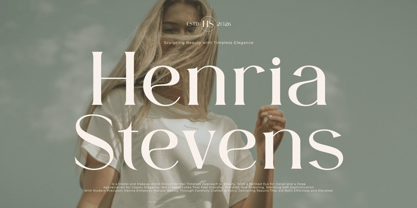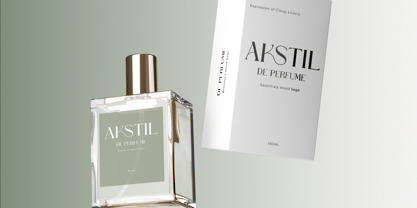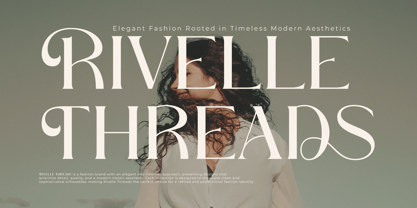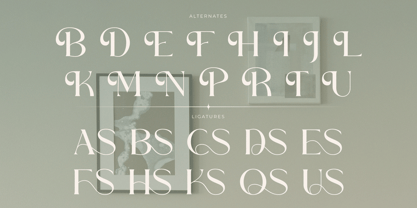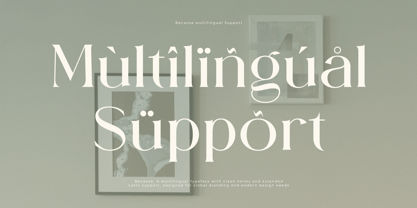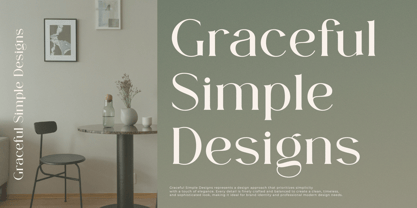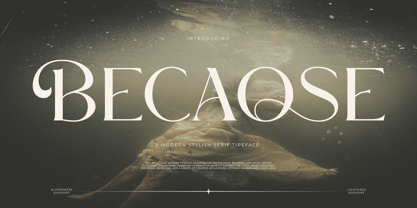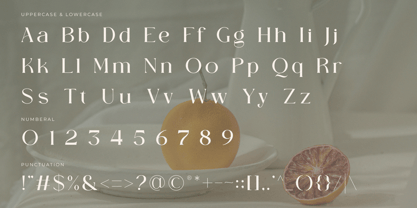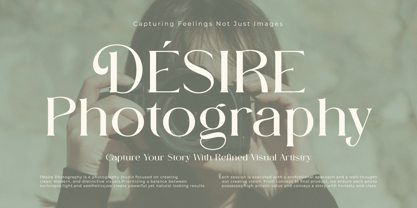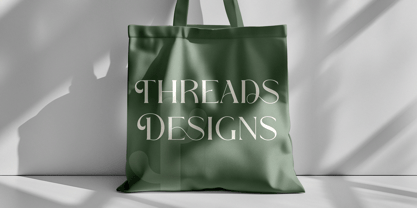
Becaose
Die Schriftfamilie Becaose wurde von Farchan entworfen und von Gridline Type veröffentlicht. Becaose enthält 1 Stile. Mehr über diese Familie
Introducing Becaose the elegant, beautiful, and modern Serif. With its modern and minimalist look, Becaose brings a luxurious, classy, ​​and clean style to your projects such as websites, modern logos, brand identities, social media quotes, wedding stationery, magazines, and more! Becaose features unique and classy capital letters A to Z and also comes with unique alternates making Becaose a beautiful font that can be customized for various projects and jobs you want. Becaose is perfect for: logos, brands, wedding invitations, business cards, greeting cards, posters, magazines, social media, agenda prints, and websites. FEATURE: * Easy to Use (Includes a guide on how to use the font) * Compatible with: Adobe Illustrator, Photoshop, Canva, Procreate, etc. * Quick Response Support * Uppercase and lowercase letters * Multilingual Characters * Numbers & punctuation * Alternative styles and ligatures Hope you enjoy our fonts & if you have any questions, feel free to Contact us & We are happy to help 🙂 I appreciate your interest and I hope you enjoy this font!